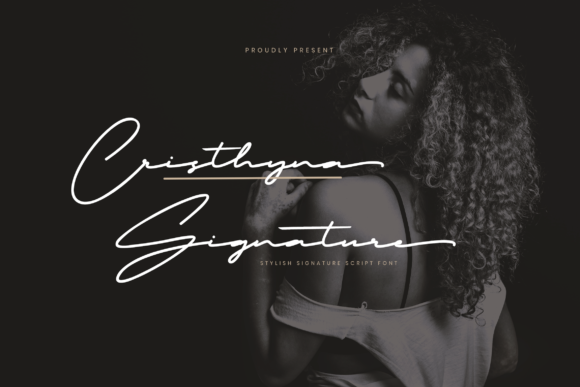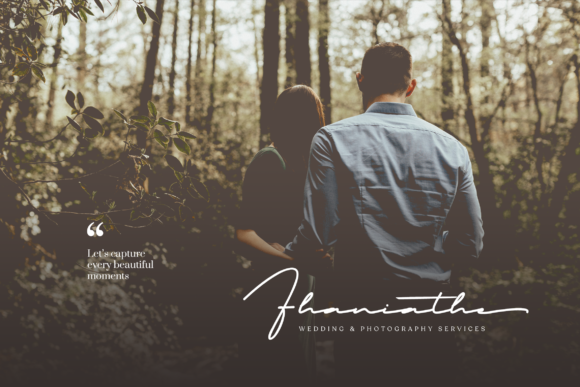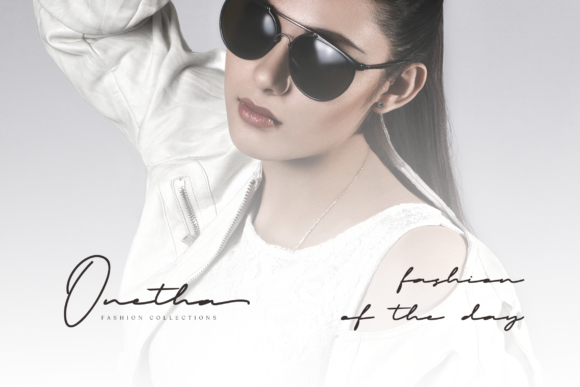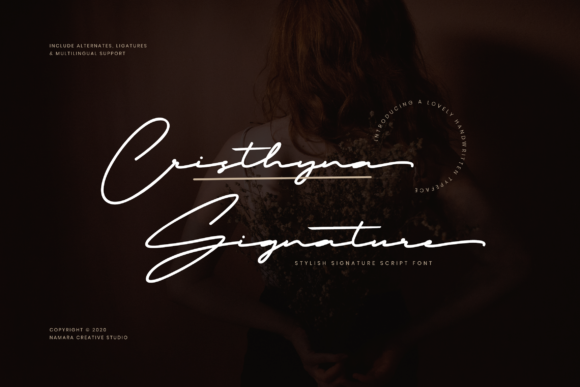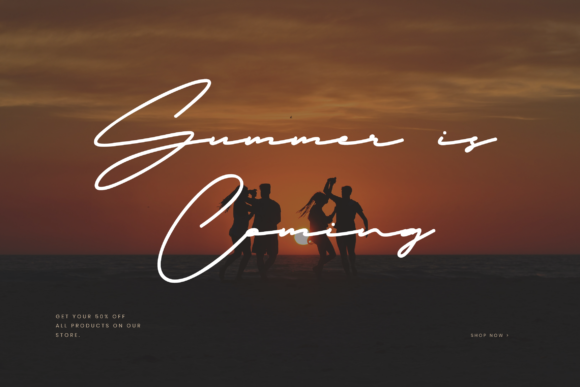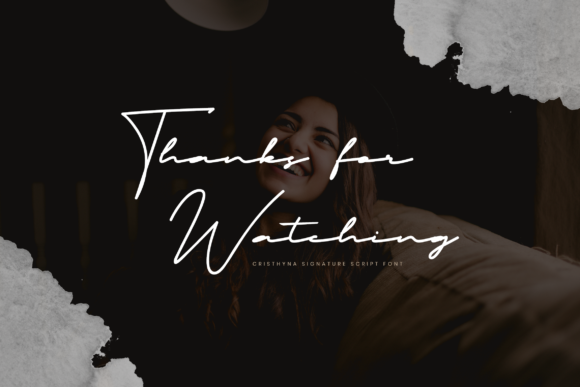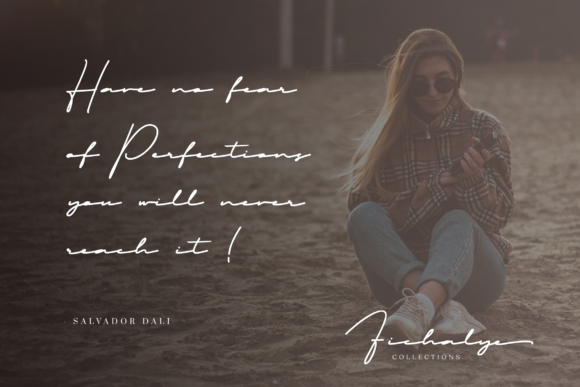
Cristhyna Signature Font
About Cristhyna Signature Font
Cristhyna Signature has a stylish and beautiful flow. Fall in love with its incredibly versatile style and use it to create spectacular designs!